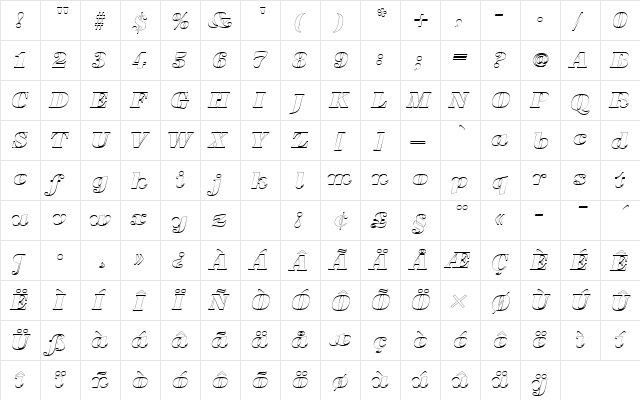
URWAntiquaTSupItaOu1 Regular
Design Context for URWAntiquaTSupItaOu1 Typeface
URWAntiquaTSupItaOu1 is a composed and adaptable typeface that performs quietly and consistently across a wide range of design contexts.